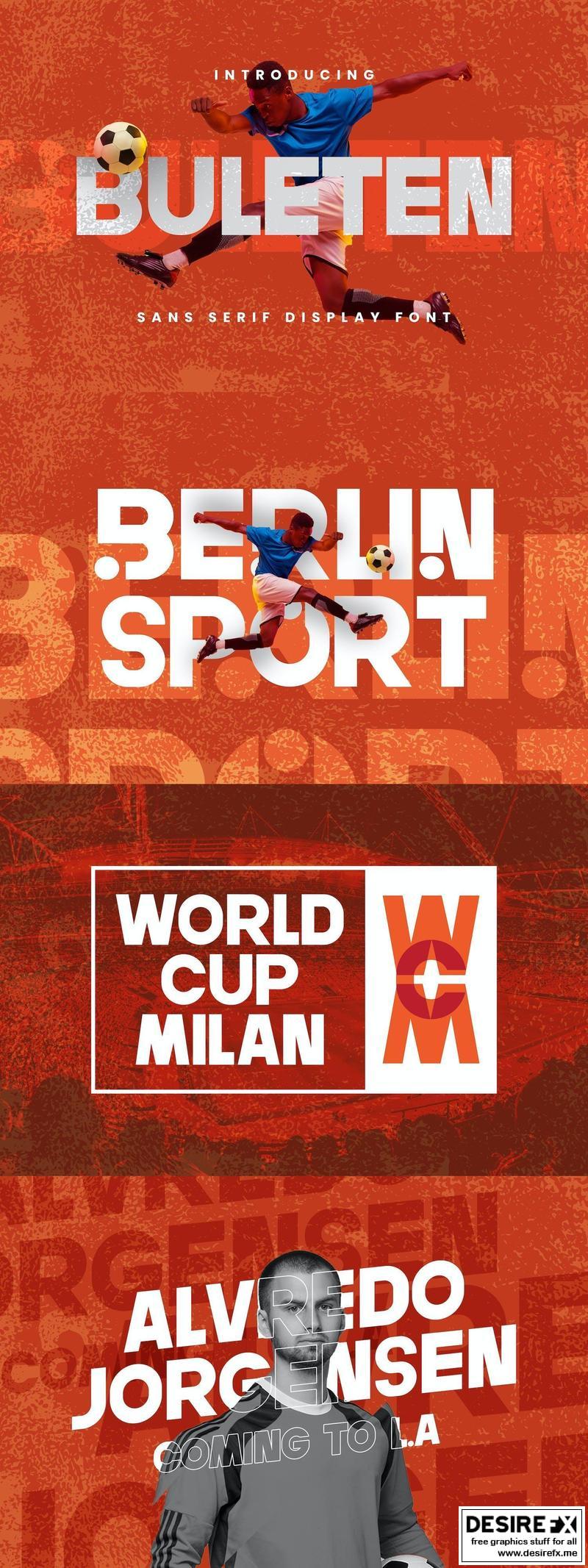
Buleten 93QJM68
Buleten – a sans serif font look with simple, clean and visual elegance with smooth curves and beautiful ligatures.
A very versatile font that works in both large and small sizes. This font is suitable for a wide variety of projects such as headlines, logos, labels, branding projects, magazines, homeware designs, product packaging, mugs, quotes, posters, and more.
Features
- Uppercase and Lowercase
- Punctuation, Number and Symbol
- Multilingual Support ÀÁÂÃÄÅÆÇÈÉÊËÌÍÎÏÐÑÒÓÔÕÖØÙÚÛÜÝ